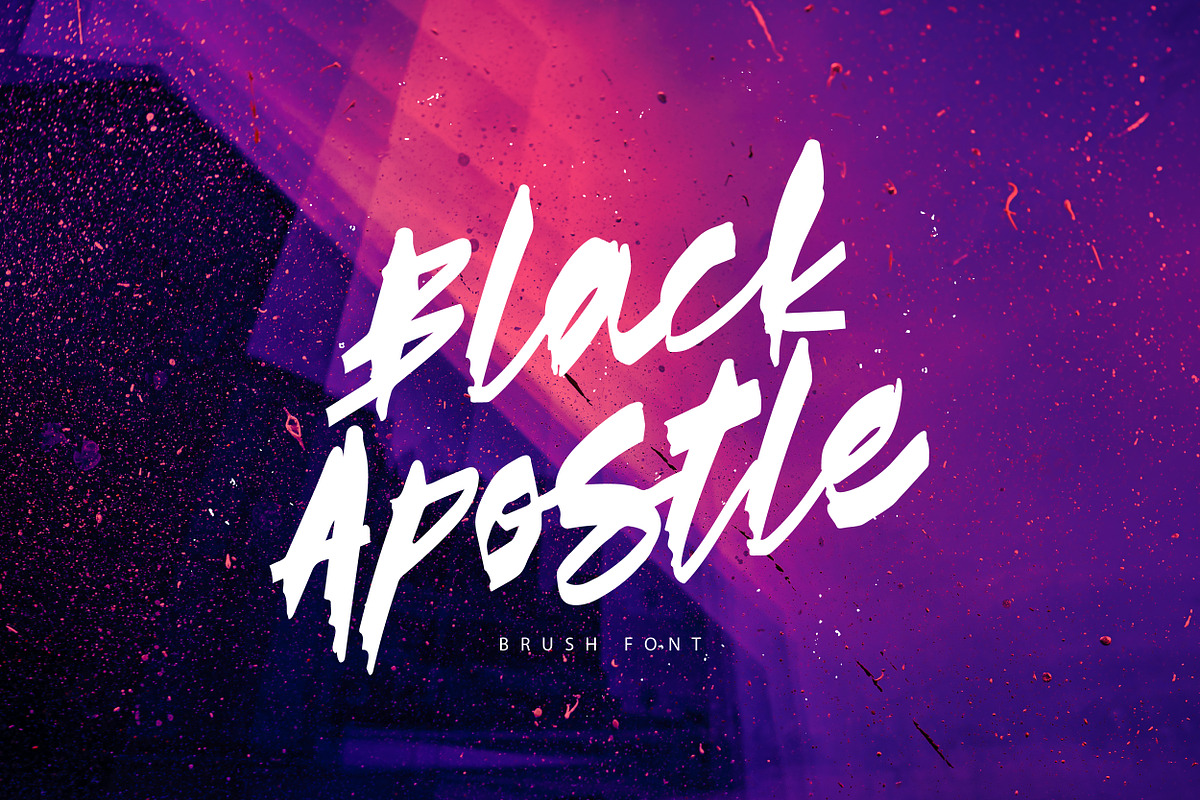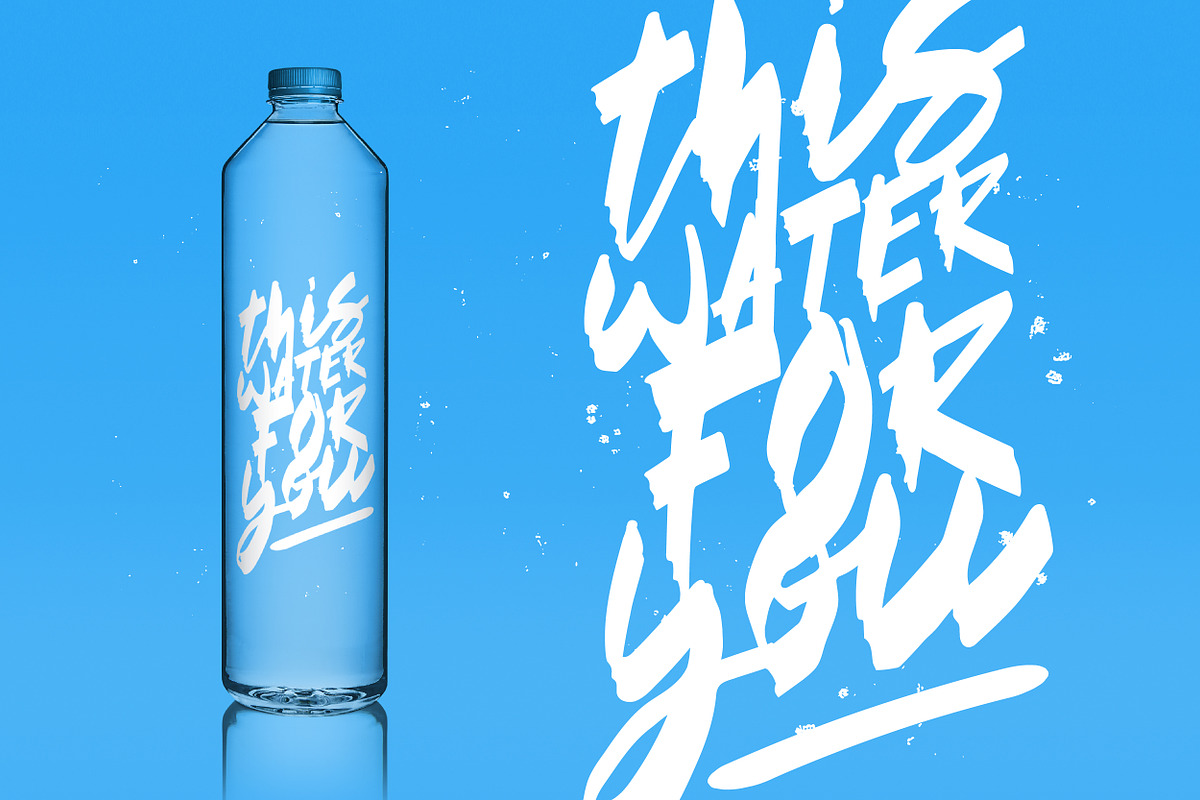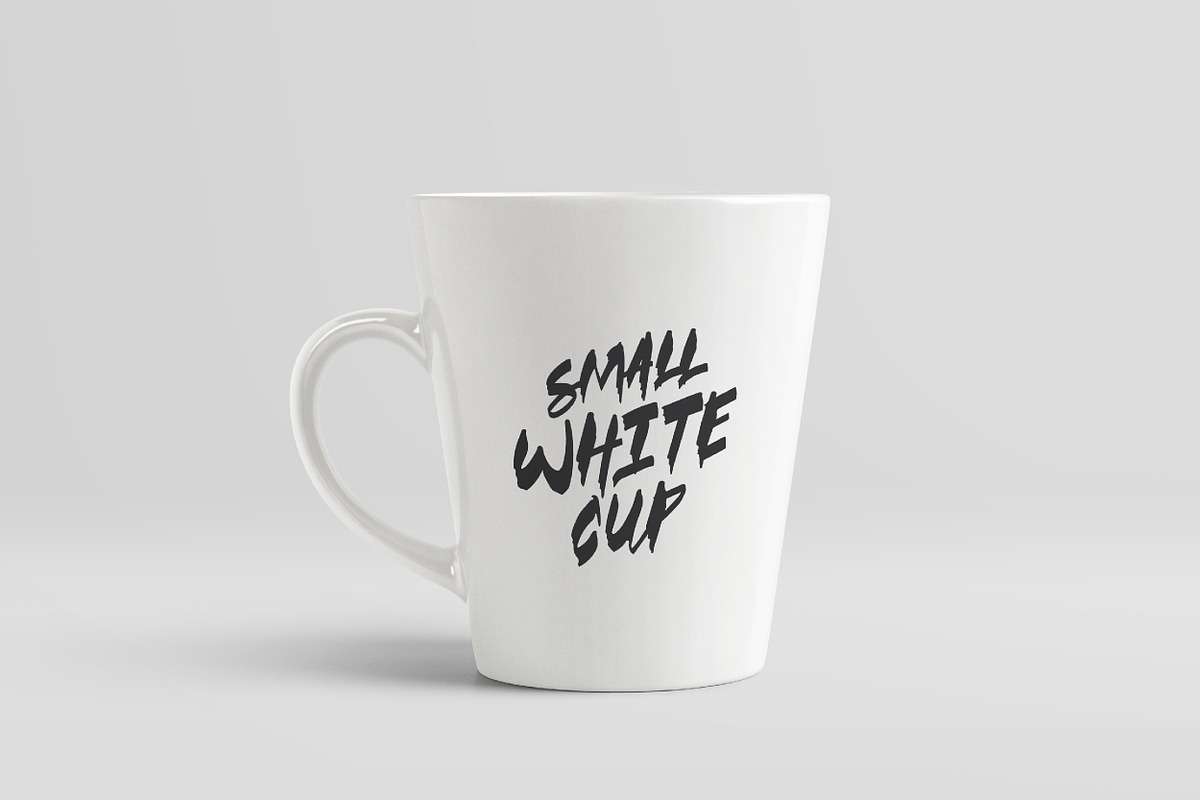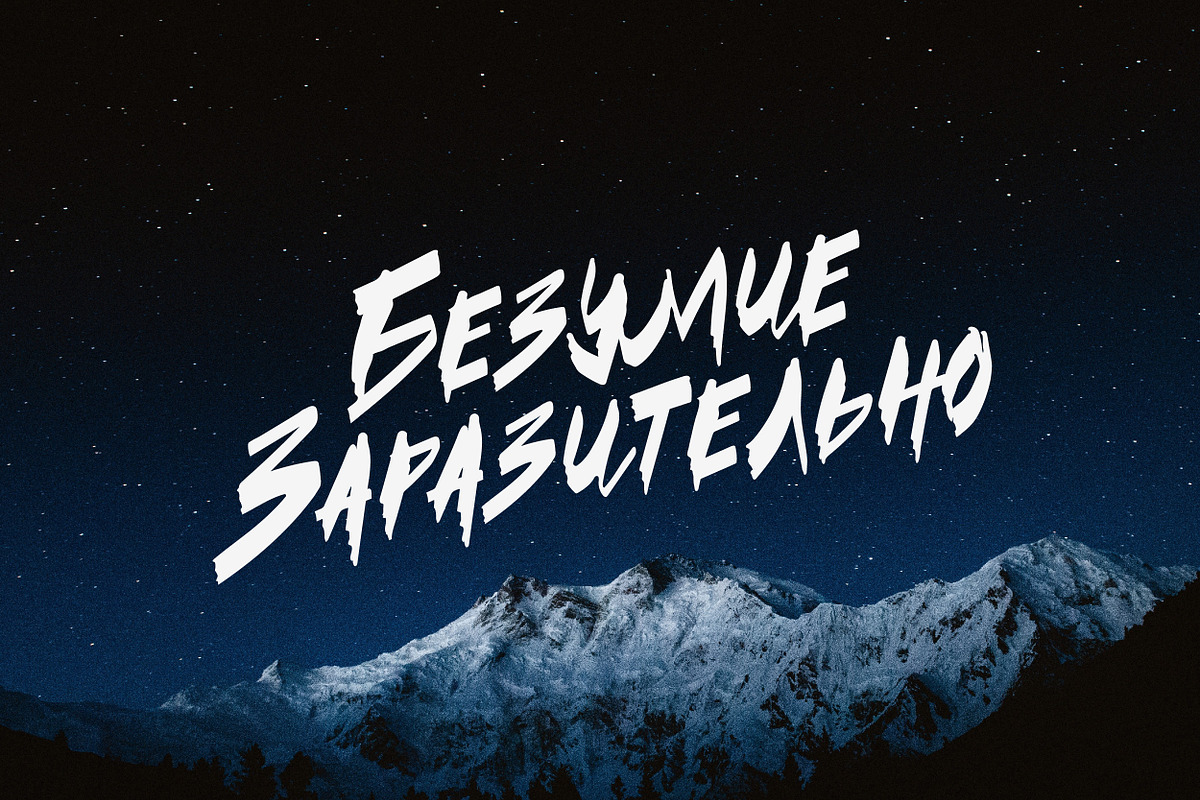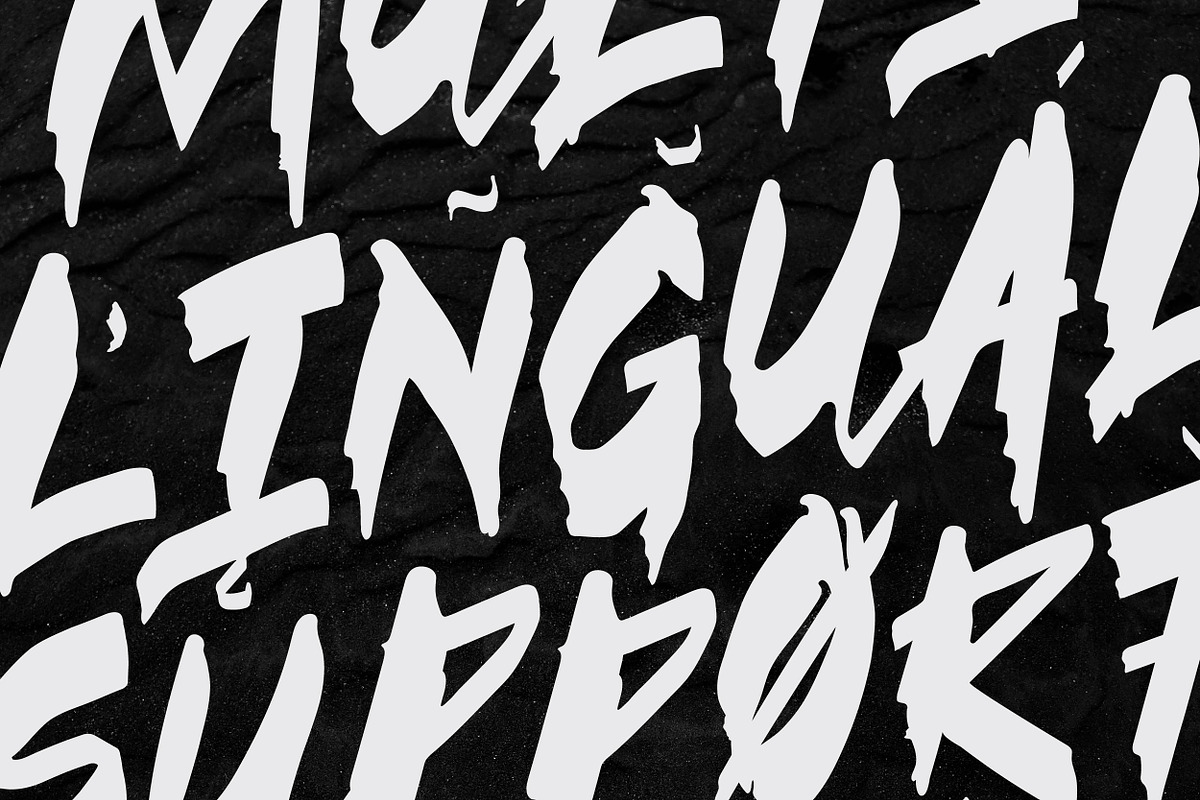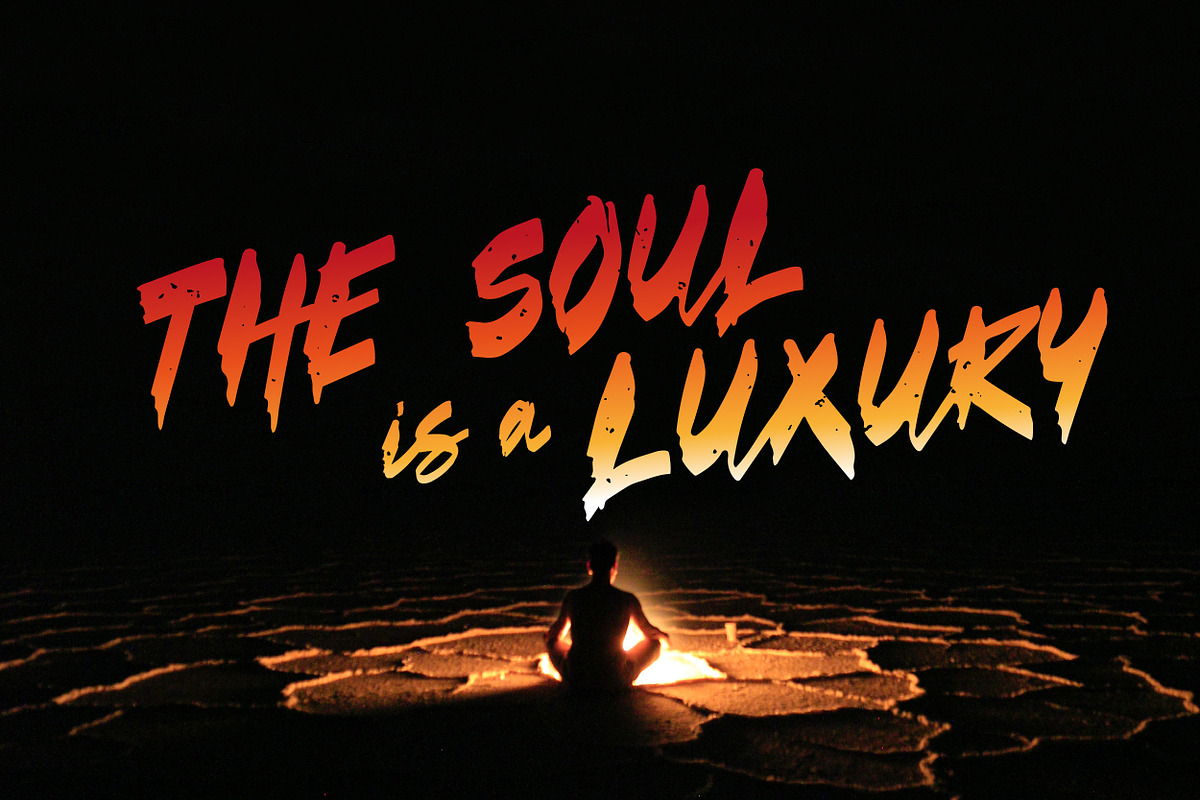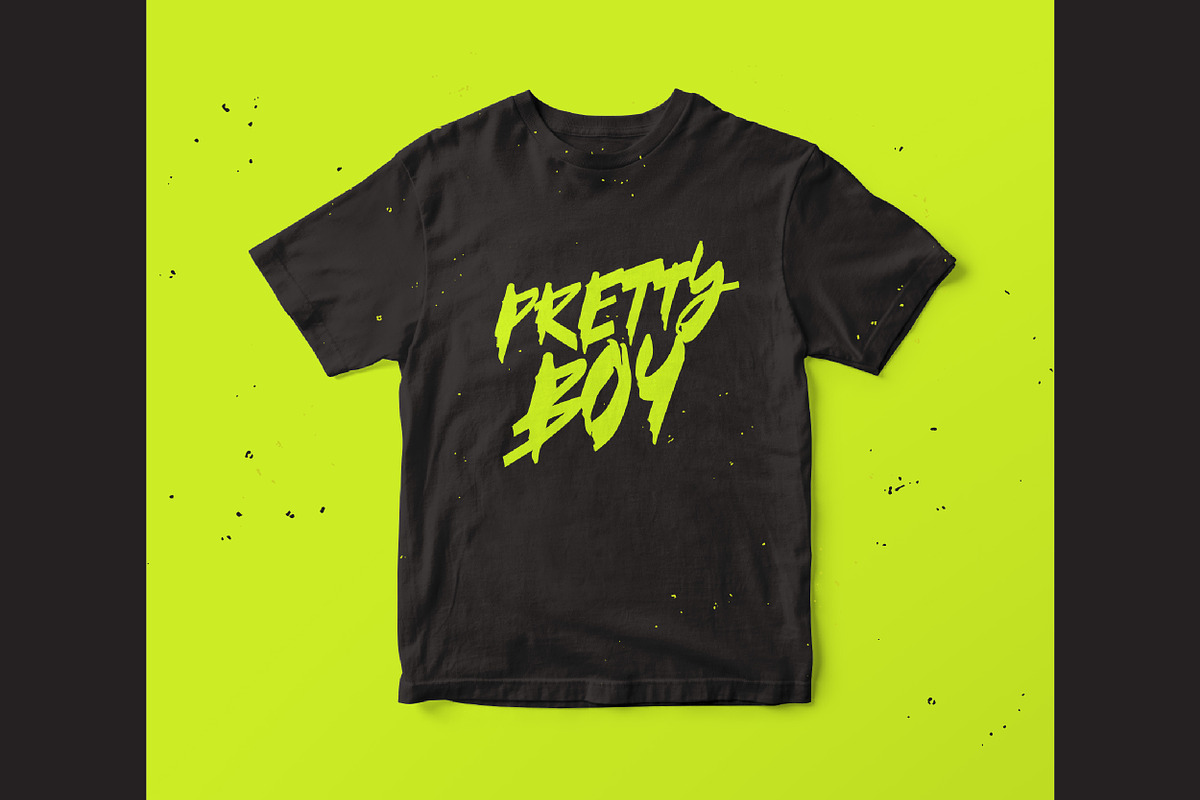
Black Apostle
Black Apostle is a hand drawn brush font. It comes with uppercase and lowercase characters, set of punctuation glyphs, numerals, cyrillic characters, some cyrillic ligatures and multilingual support.
Perfect for logos, quotes, posters, branding projects, product packaging, t-shirt, book cover, greeting cards and applicable for any graphic design.